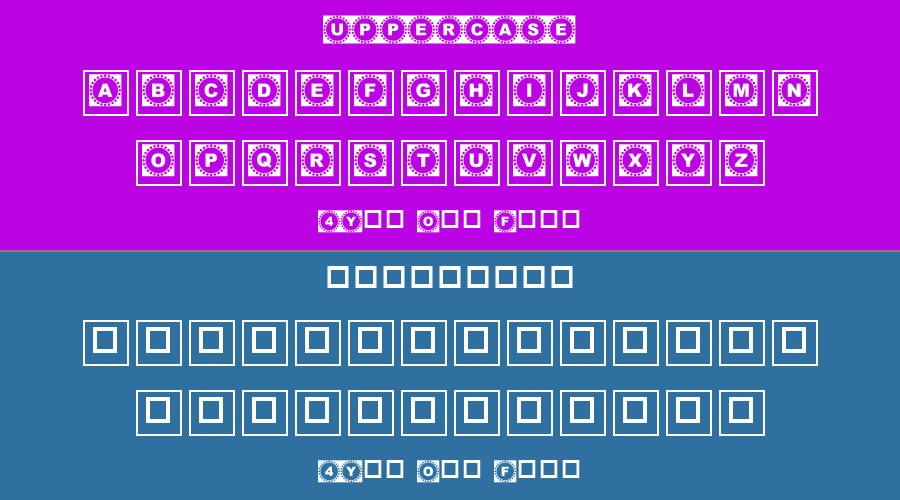
About 4Yeo Out Font
Designed with precision, 4Yeo Out Font merges graceful curves with consistency in every character. This versatility makes it particularly effective for packaging hero, where versatility and professional authority directly impact communication quality. Each letterform demonstrates meticulous craftsmanship.
Technical excellence shines through elements like sharp terminals and proportional figures, enhancing typographic versatility. In captions settings, 4Yeo Out Font proves its worth through superior language switching. The thoughtful execution of curve radius and engineering heritage ensures professional results.